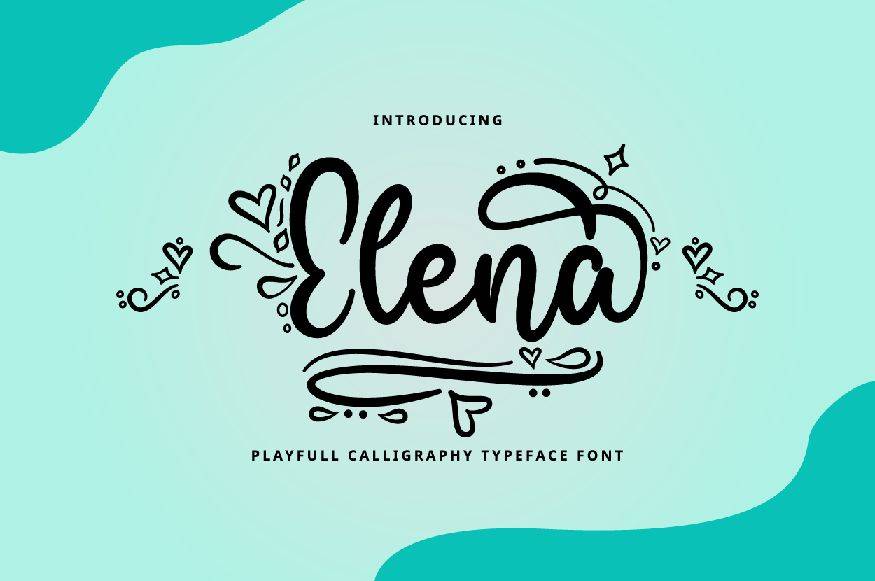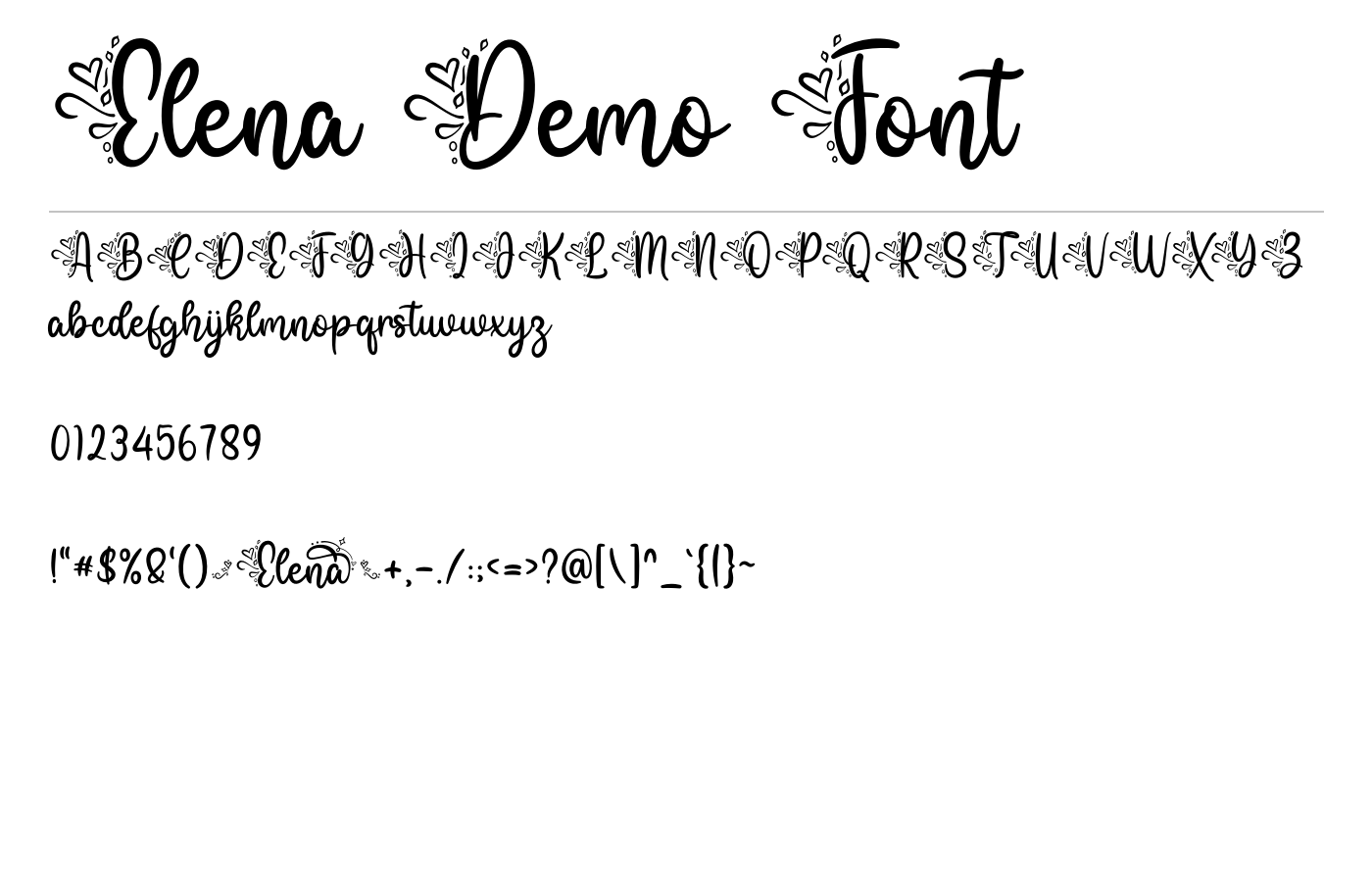
Elena Font is a charming script typeface with a playful and elegant touch, characterized by its smooth, flowing strokes and decorative flourishes on uppercase letters. It features a friendly, handwritten style that works beautifully for creative and feminine branding, invitations, and greeting cards. Its light weight and airy spacing make it ideal for attention-grabbing headlines and decorative uses rather than body text.
Elena Font
About Elena Font
| Font family | Elena Font |
| Designer | Letter art studio |